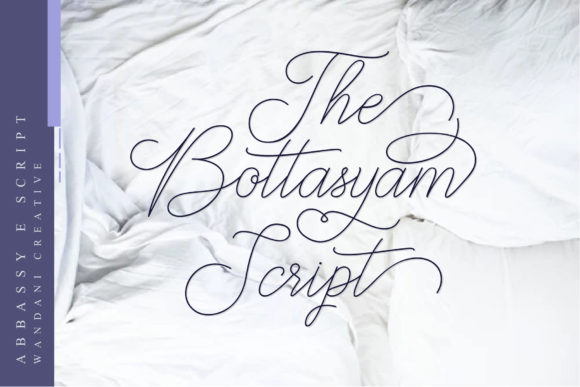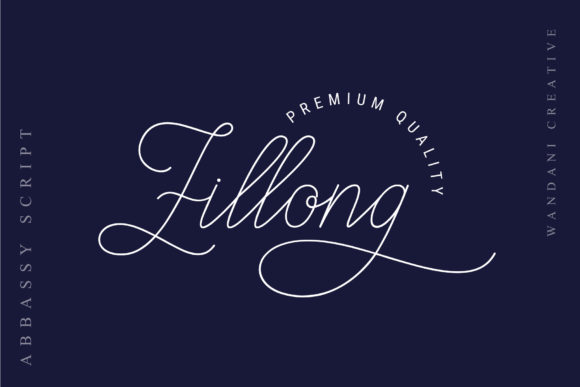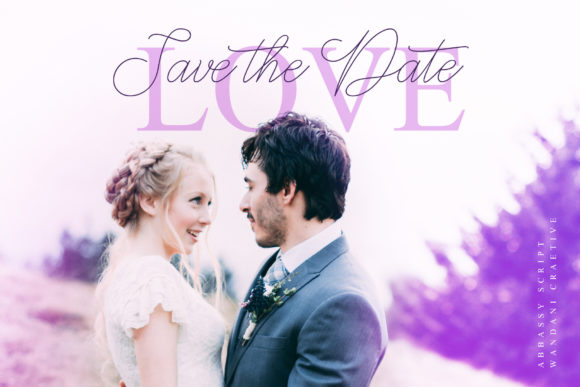
Introduction to Abbassy Script Font
Abbassy is a stunning and bold handwritten font with a timeless appeal.
It will add a unique feel to any design project .
Key Features of Abbassy Script Font
Why Choose Abbassy Script Font?
Abbassy Script Font offers exceptional quality and versatility, making it a valuable addition to your design toolkit. Whether you’re creating for personal projects or commercial use, Abbassy Script Font delivers professional results.